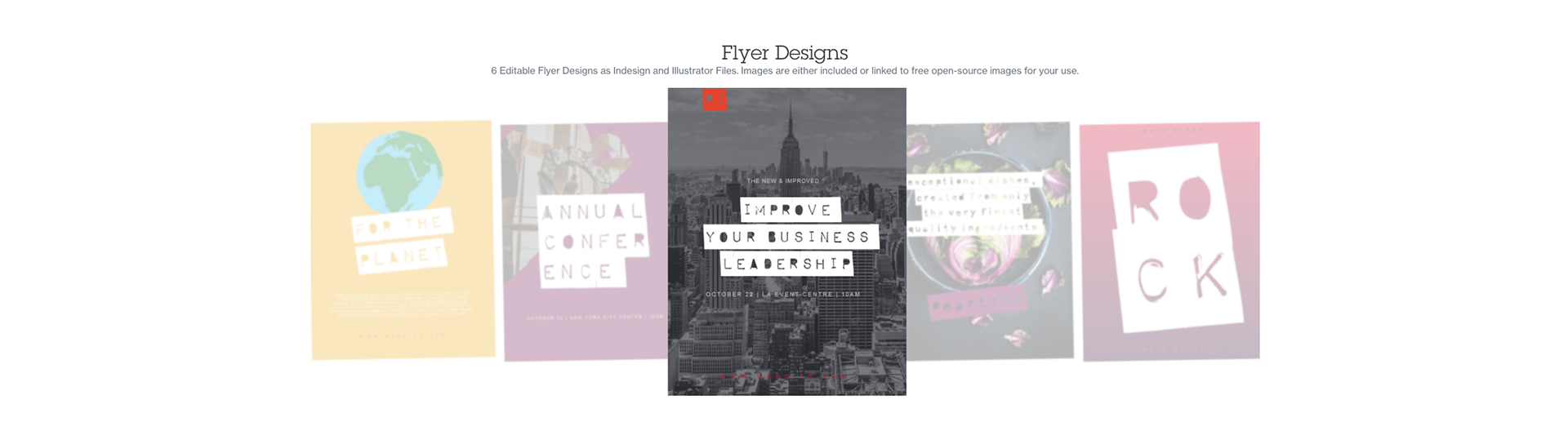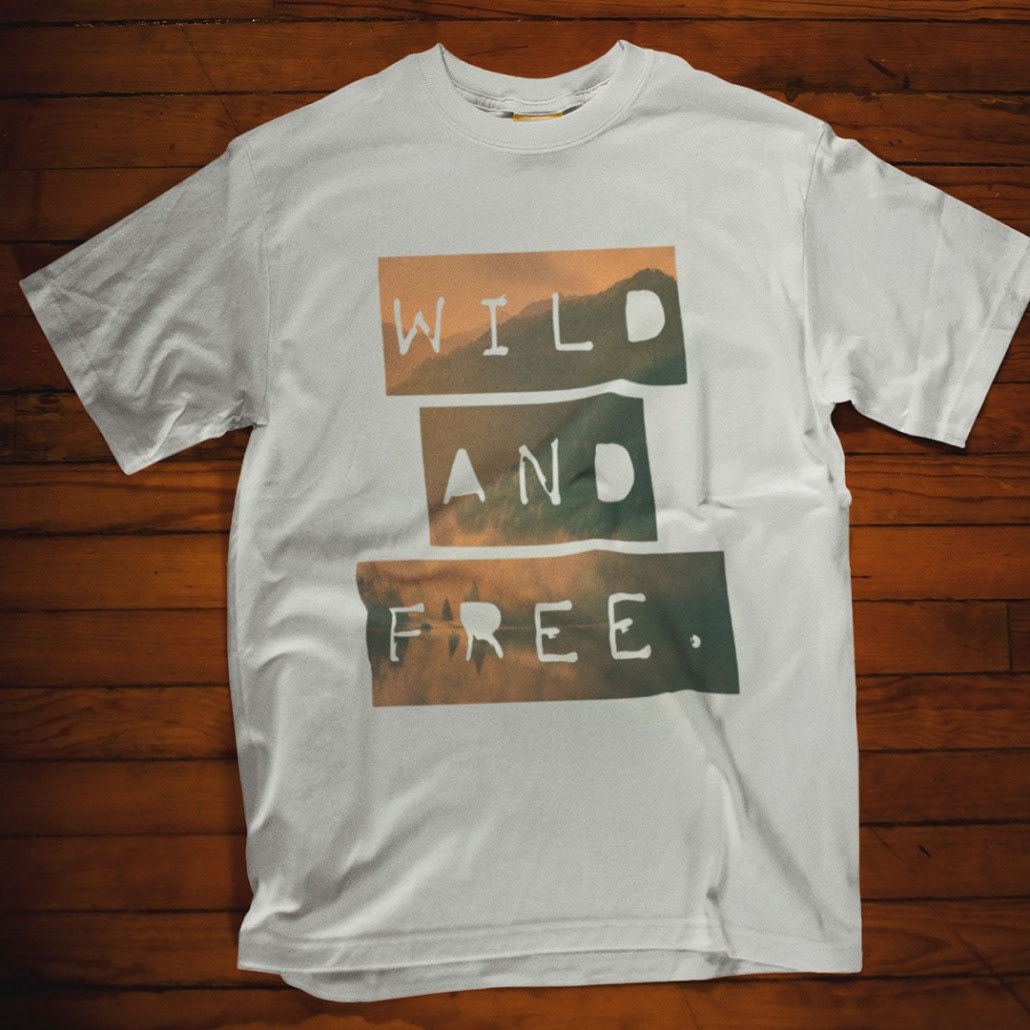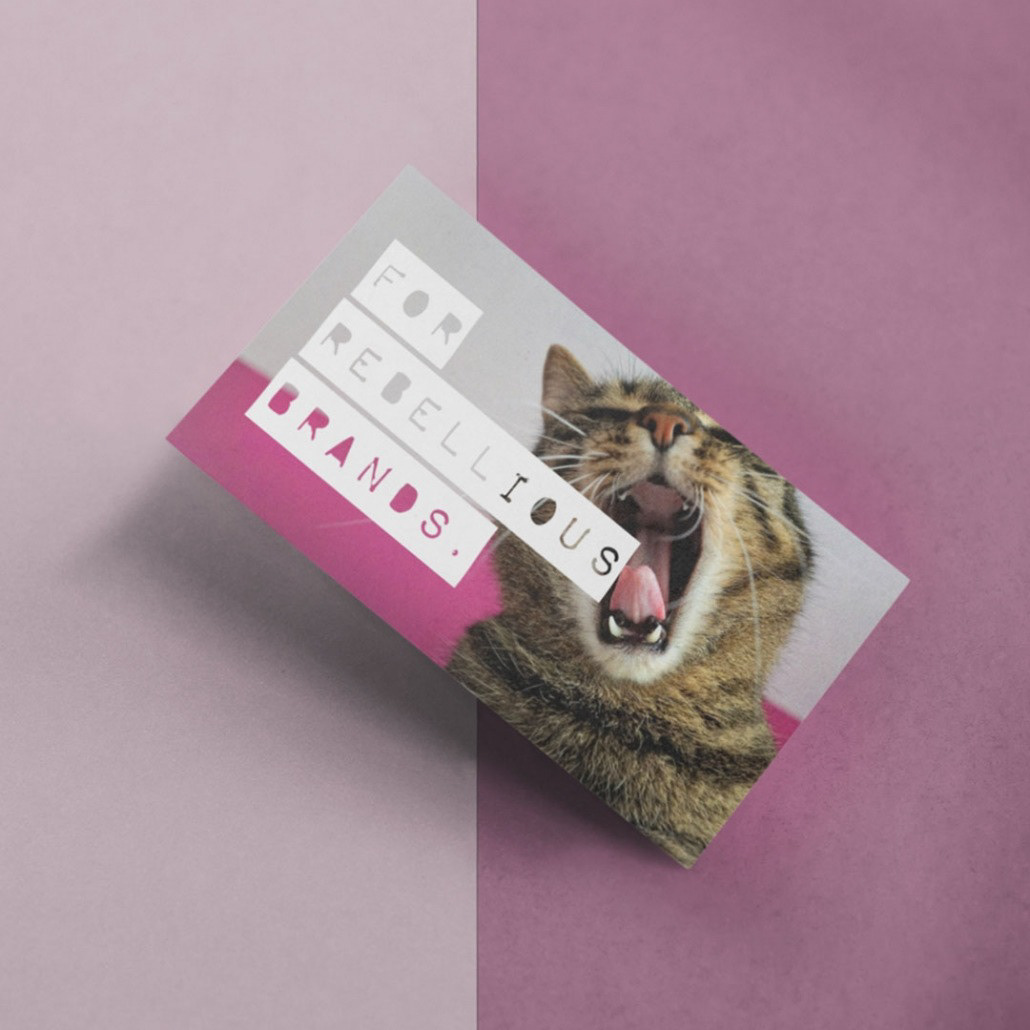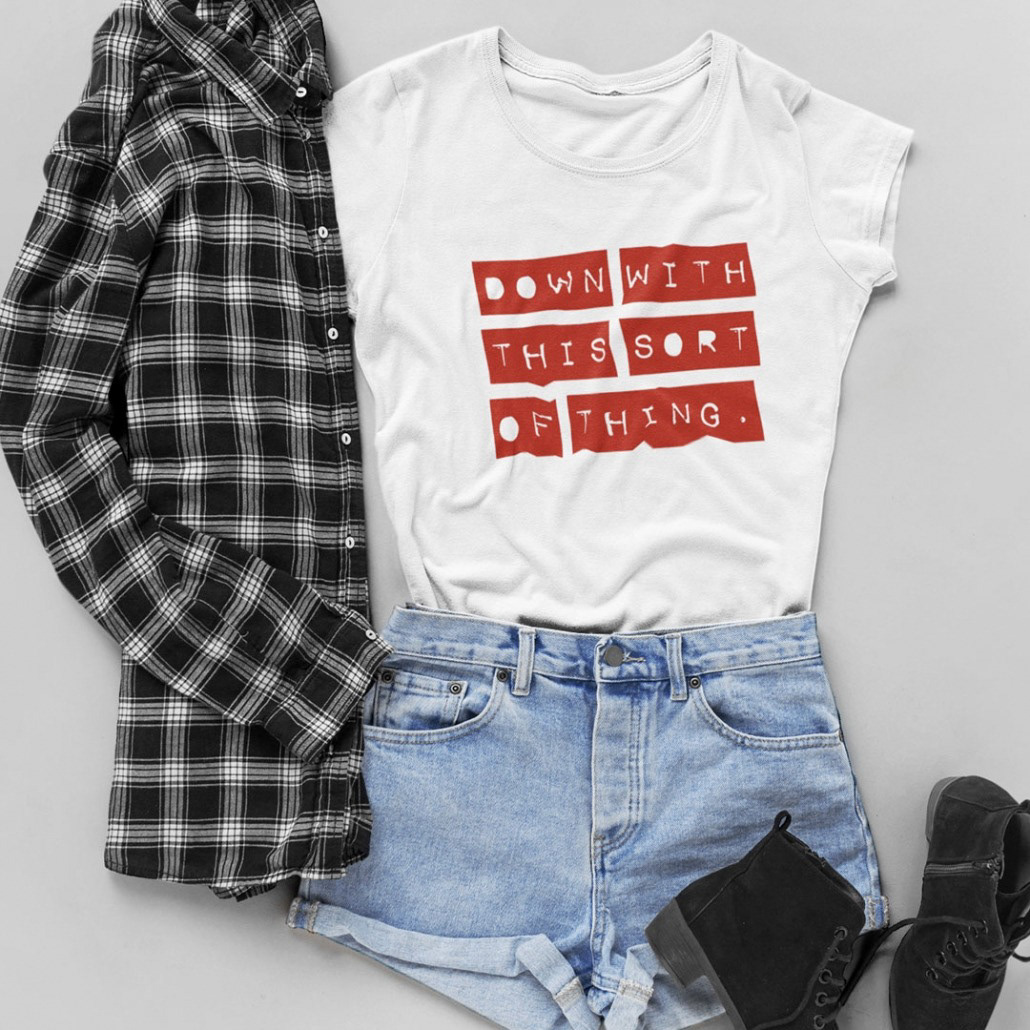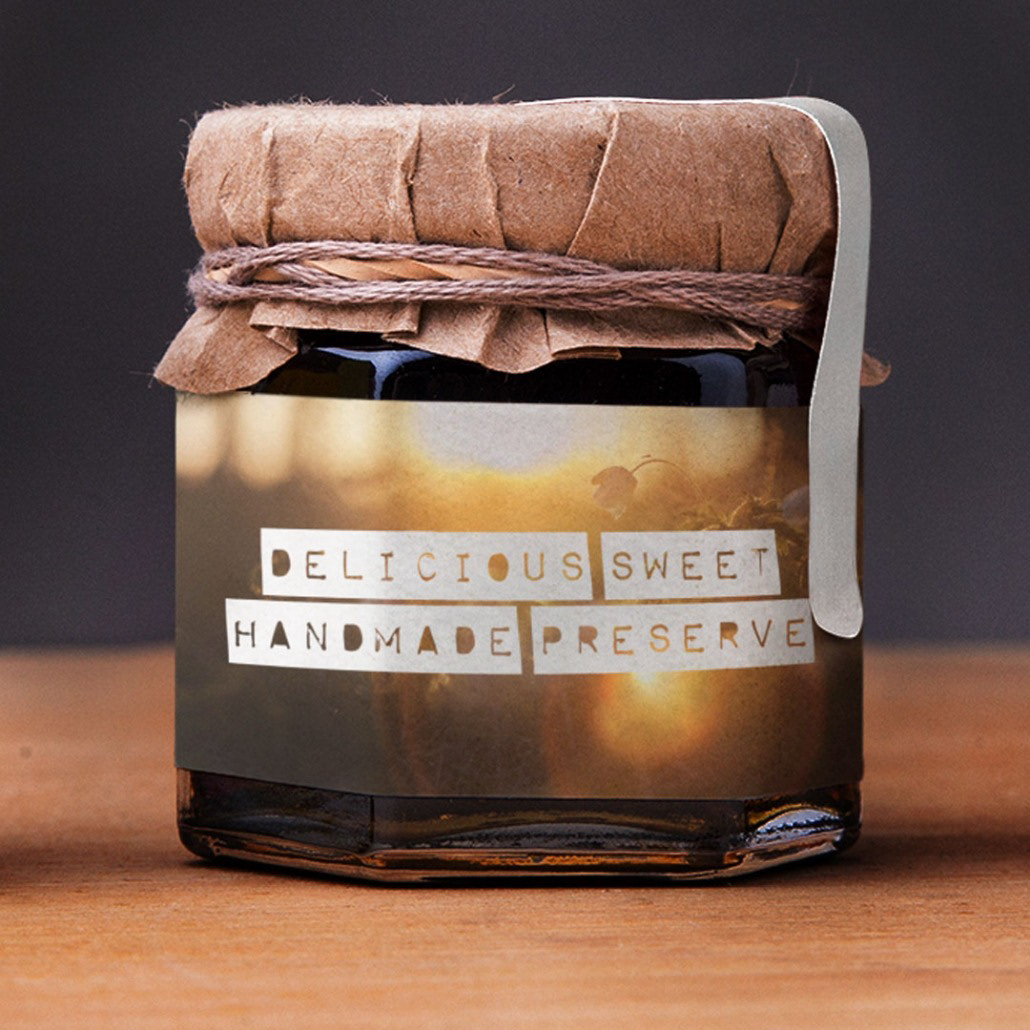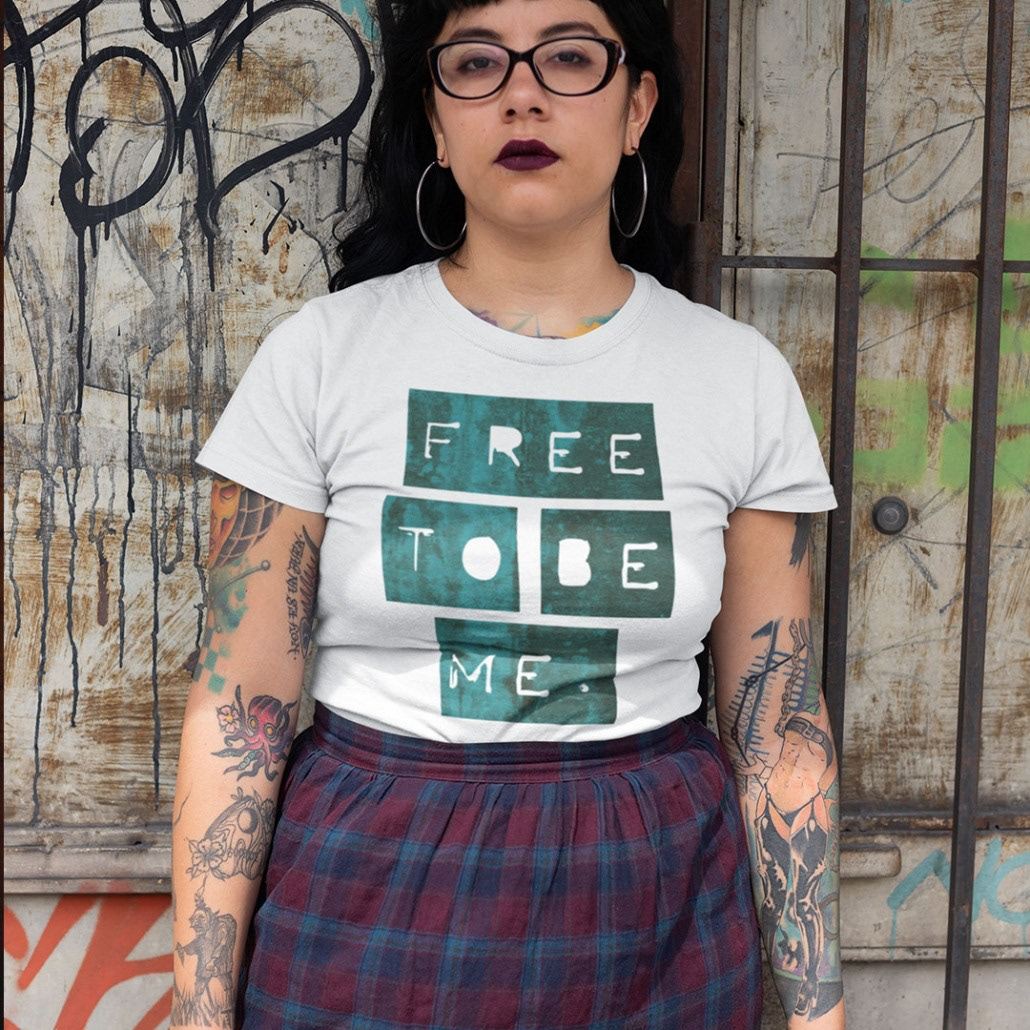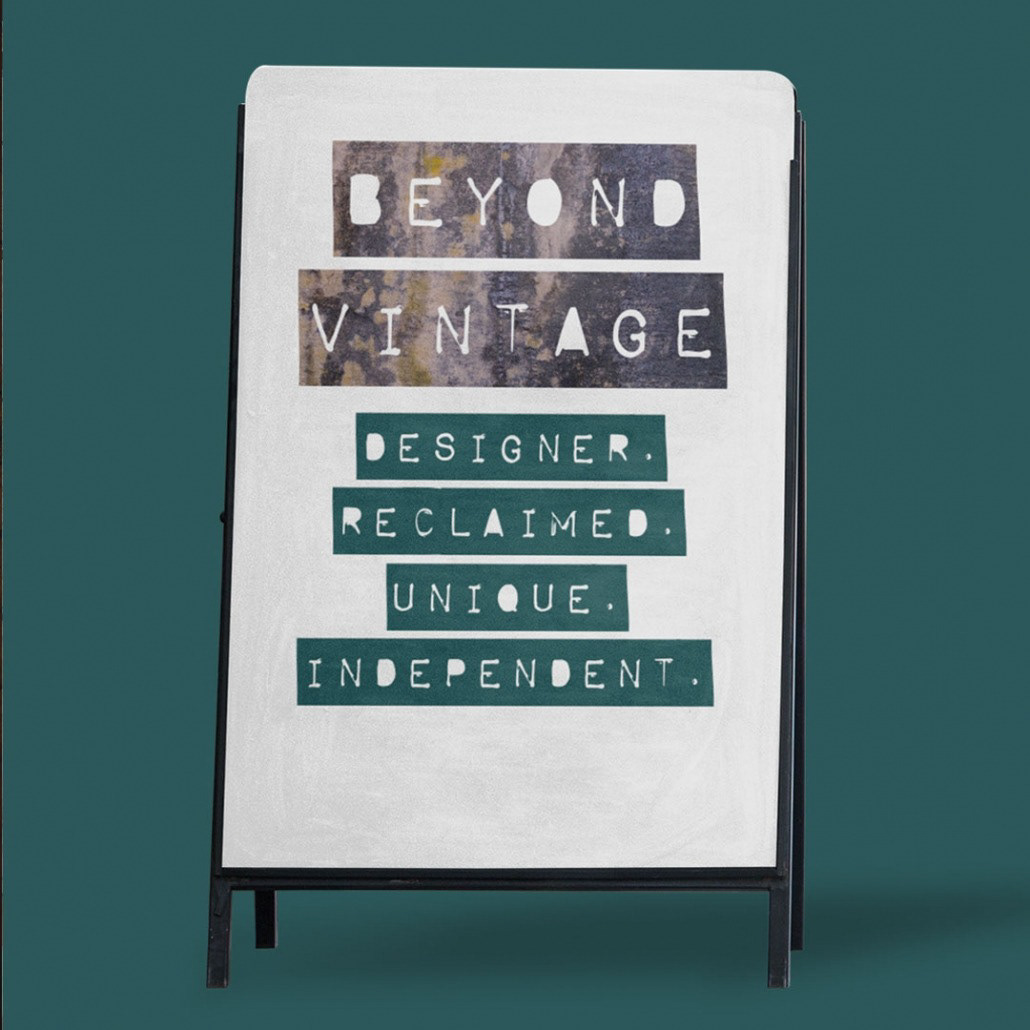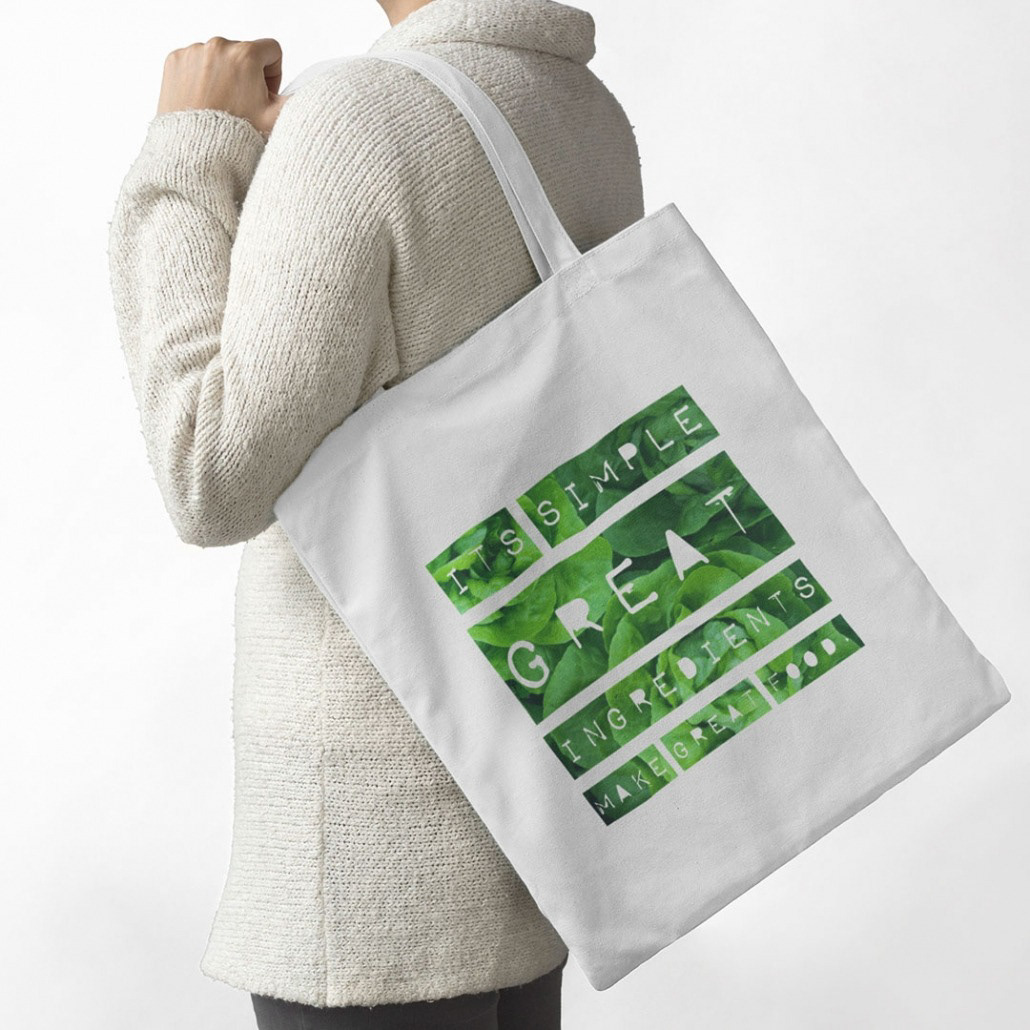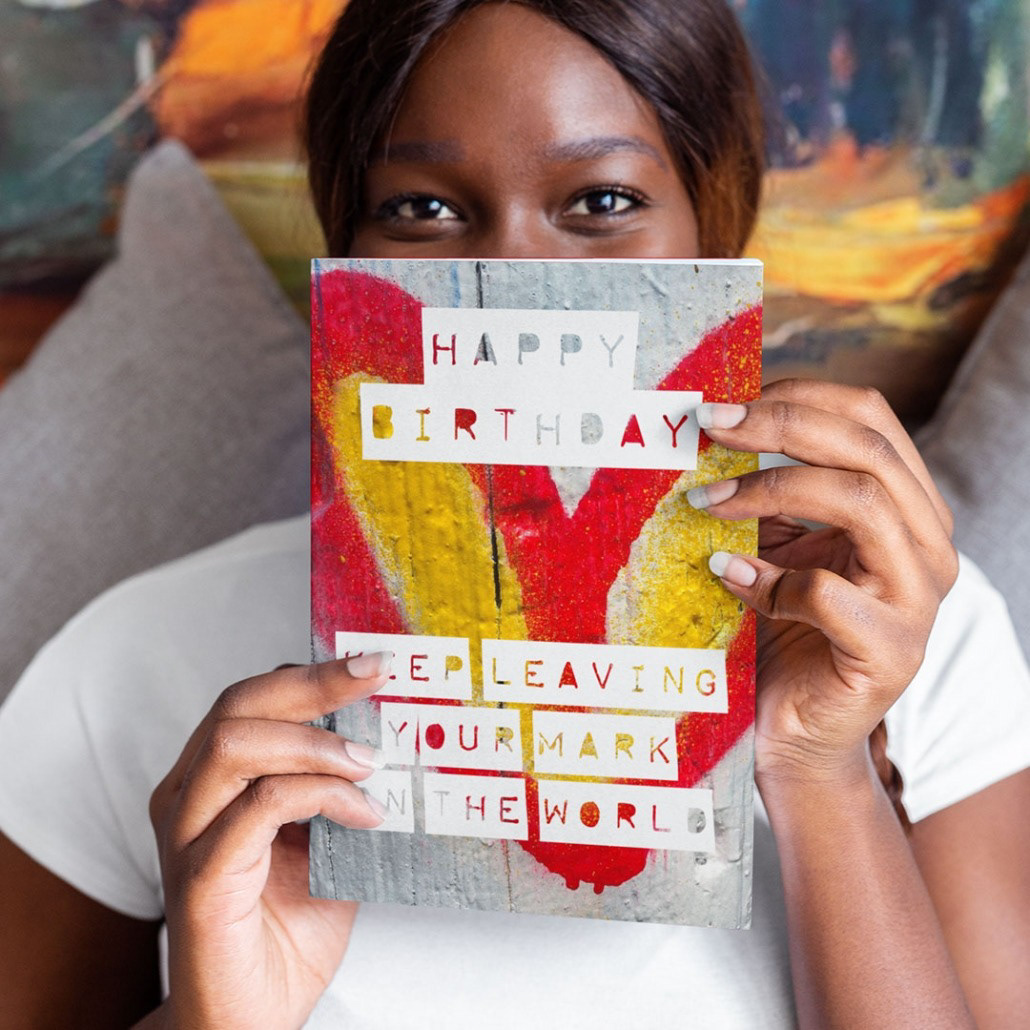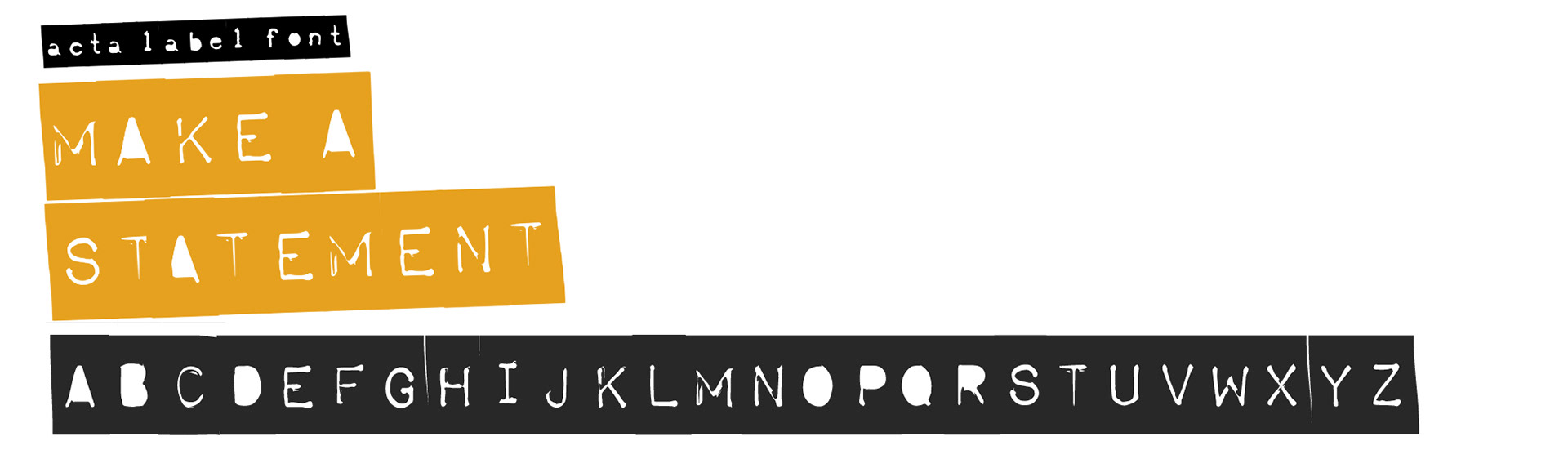
The Acta Label font creates a bold cut out label font effect to your work.
Classic and rough in style easy to use with many alternates and negative effect letters, the Acta font brings a unique style to your work, whether it is for a grunge cutout effect, or a range of anarchist statement posters, its full personality.
The Acta font has upper and lowercase letters are included along with over 350 glyphs. Great for use as headings, banners, labels and for a bold statement.